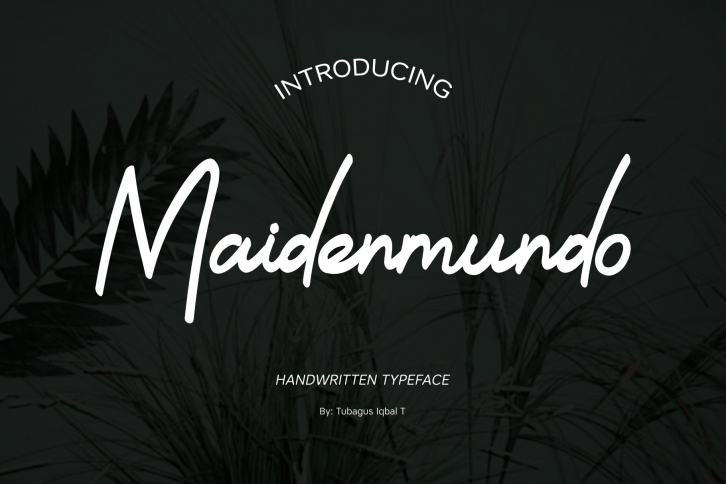
Maidenmundo typeface FONT Download
Maidenmundo Typeface is a handwritten made, inspired by the daily basis of your notebook scratch. It's suitable for your text cover or title cover of your design, or even your custom books.